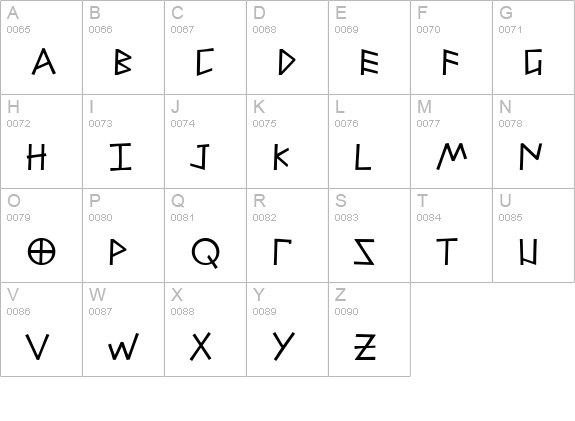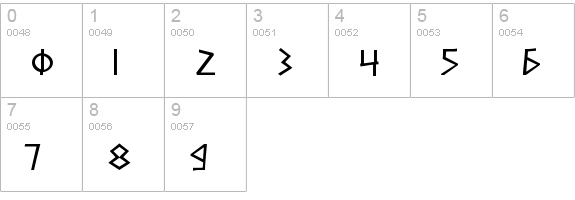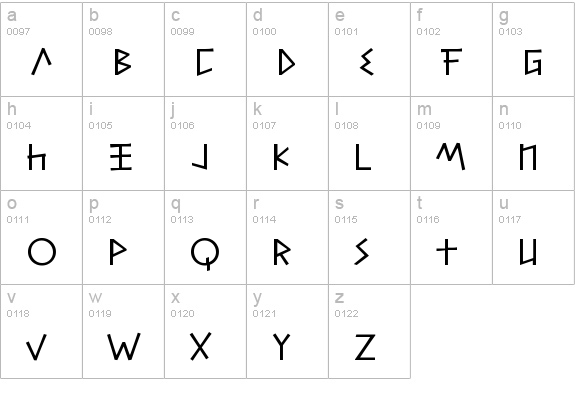
Alfabetix Font Details
Introducing Alfabetix font, a modern and stylish typeface that exudes elegance and sophistication. This versatile font features clean lines and sharp edges, making it ideal for a wide range of design projects. Whether you're creating a sleek logo, designing a professional website, or crafting eye-catching marketing materials, Alfabetix is sure to make a bold statement. What sets Alfabetix apart is its seamless blend of classic and contemporary design elements. The letters are beautifully crafted with attention to detail, ensuring a polished and refined look. With its timeless appeal, Alfabetix is perfect for both print and digital applications, adding a touch of class to any project. And the best part? Alfabetix is completely free to download at FontsMarket.com. Yes, you read that right - this stunning font is available at no cost, giving you access to high-quality design resources without breaking the bank. So why wait? Elevate your designs with Alfabetix and let your creativity shine.